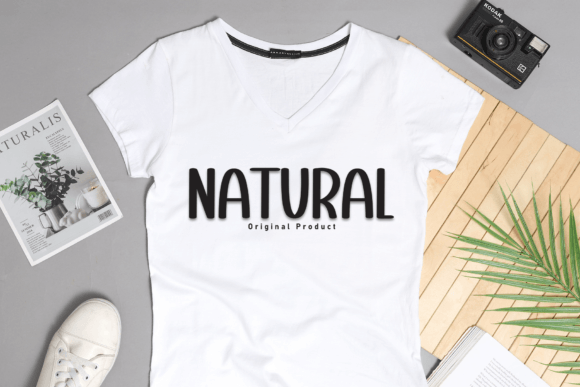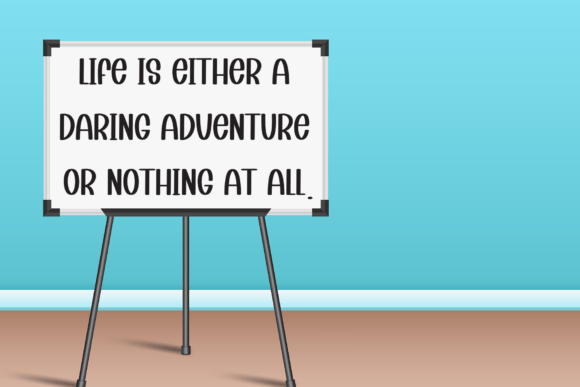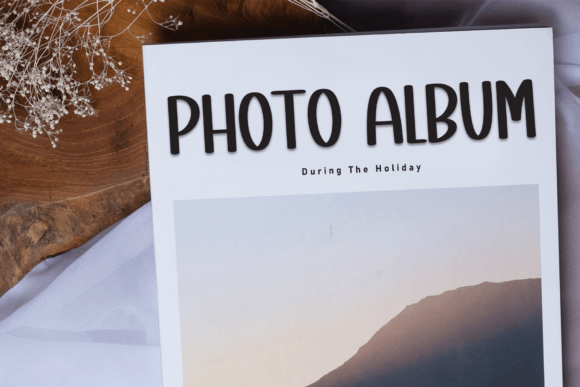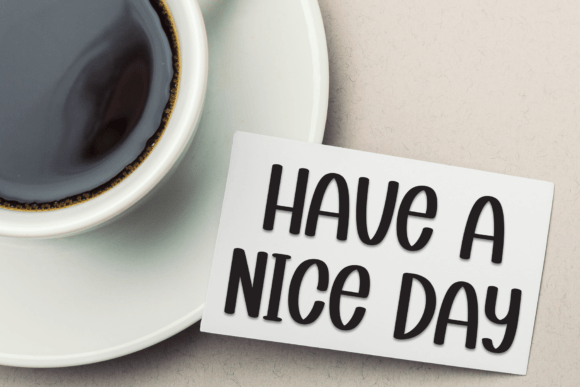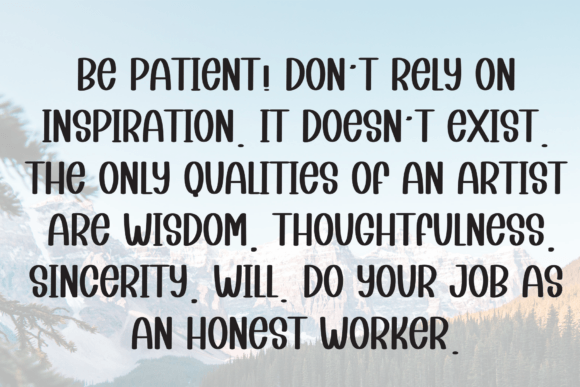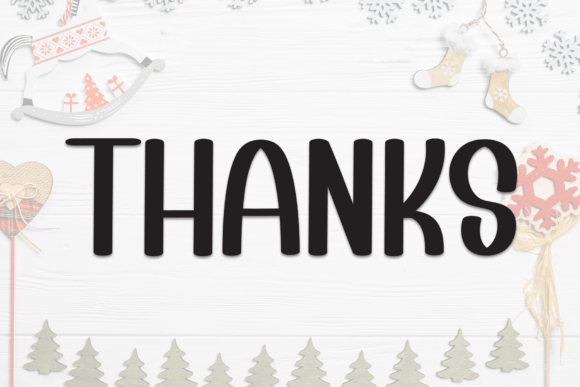
Introducing Christmas Ornament Font: The Perfect Addition to Your Holiday Designs
Are you looking for a font that captures the essence of the holiday season? Look no further than Christmas Ornament Font, a sweet and friendly handwritten font that’s perfect for adding a touch of festive flair to your designs. With its natural and unique style, Christmas Ornament Font is incredibly versatile and can be used for a wide range of projects, from holiday cards and invitations to decorations and crafts.
The Characteristics of Christmas Ornament Font
Christmas Ornament Font is a handwritten font that’s designed to evoke the feeling of a bygone era. Its natural, imperfect lines and curves give it a charming, homespun feel that’s perfect for creating holiday designs that feel warm and inviting. The font’s unique style is reminiscent of traditional Christmas ornaments, with a sweet and friendly vibe that’s sure to put a smile on anyone’s face.
One of the standout features of Christmas Ornament Font is its incredible versatility. Whether you’re designing a holiday card, creating a festive decoration, or crafting a special invitation, this font is sure to add a touch of magic to your project. The only limit is your imagination!
Uses for Christmas Ornament Font
So, what can you do with Christmas Ornament Font? The possibilities are endless! Here are just a few ideas to get you started:
• Holiday Cards and Invitations: Use Christmas Ornament Font to create beautiful, one-of-a-kind holiday cards and invitations that are sure to impress your friends and family.
• Festive Decorations: Add a touch of holiday cheer to your decorations with Christmas Ornament Font. Use it to create signs, banners, and other decorative elements that are sure to get you in the holiday spirit.
• Crafts and DIY Projects: Christmas Ornament Font is perfect for crafters and DIY enthusiasts. Use it to create personalized gifts, decorations, and other handmade projects that are sure to be treasured for years to come.
• Digital Designs: Christmas Ornament Font is also perfect for digital designers. Use it to create festive social media graphics, blog posts, and other digital content that’s sure to get your audience in the holiday mood.
Tips for Using Christmas Ornament Font
Here are a few tips for getting the most out of Christmas Ornament Font:
• Keep it Simple: Don’t be afraid to keep things simple with Christmas Ornament Font. Use it to create clean, elegant designs that showcase the font’s unique style.
• Experiment with Colors: Christmas Ornament Font looks great in a wide range of colors, from traditional holiday colors like red and green to more modern shades like metallic silver and gold.
• Mix and Match: Don’t be afraid to mix and match Christmas Ornament Font with other fonts and design elements. This font is versatile enough to work well with a wide range of styles and aesthetics.
Christmas Ornament Font is a sweet and friendly handwritten font that’s perfect for adding a touch of festive flair to your holiday designs. With its natural and unique style, this font is incredibly versatile and can be used for a wide range of projects, from holiday cards and invitations to decorations and crafts. Whether you’re a designer, crafter, or DIY enthusiast, Christmas Ornament Font is sure to become a favorite in your collection. So why wait? Download Christmas Ornament Font today and start creating your own unique holiday designs!